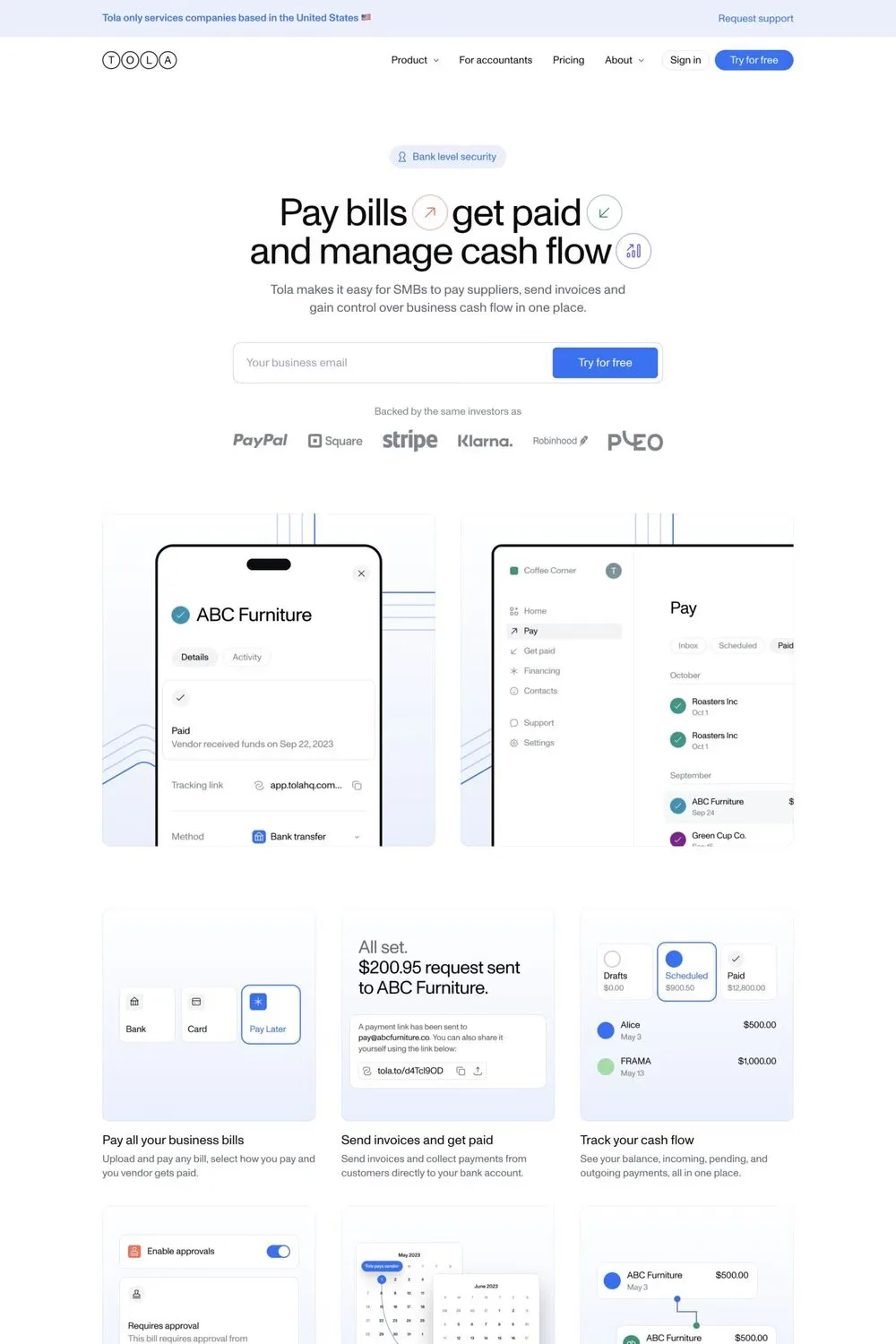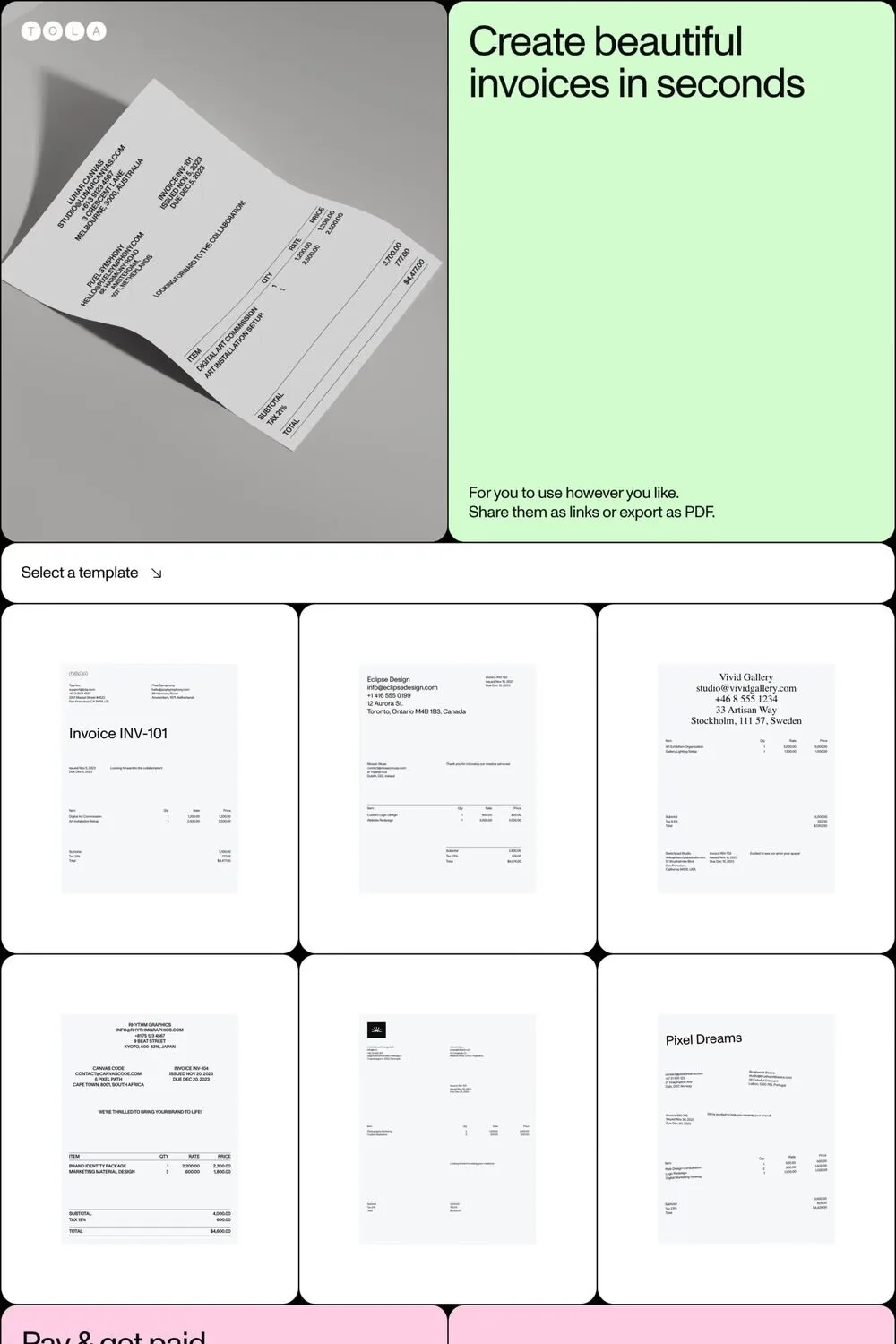
Monument Extended is a sans-serif typeface from Pangram.
Monument Extended is a powerful quality extended typeface with great versatility ● This extended font can be used for bold editorial statements, graphic heavy prints or just as a simple logo ▲ This new type will definitely make your designs stand out and unique.
A1 features 2 websites using Monument Extended, including Tola Invoice and Tola. They lean towards Pastel, Animated, and Colourful design styles.